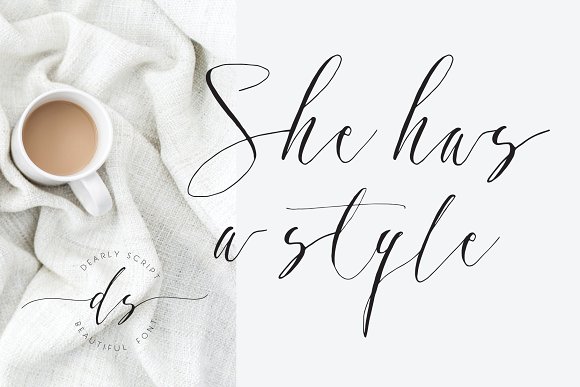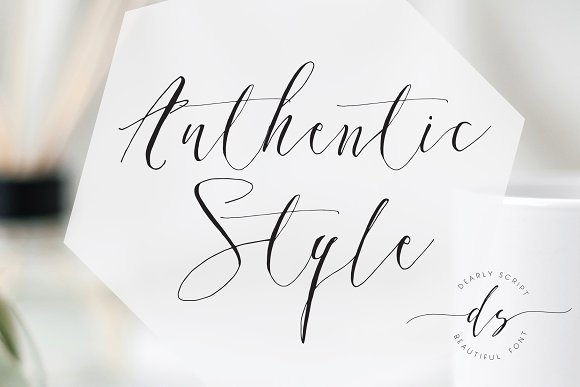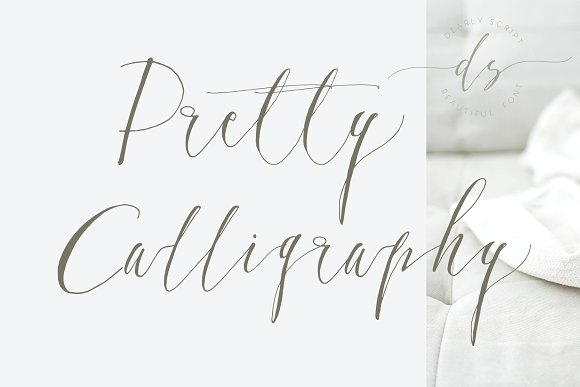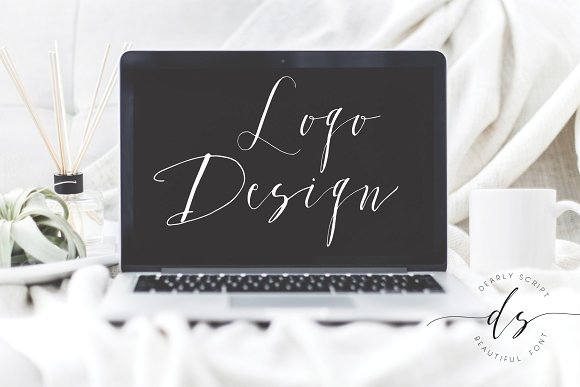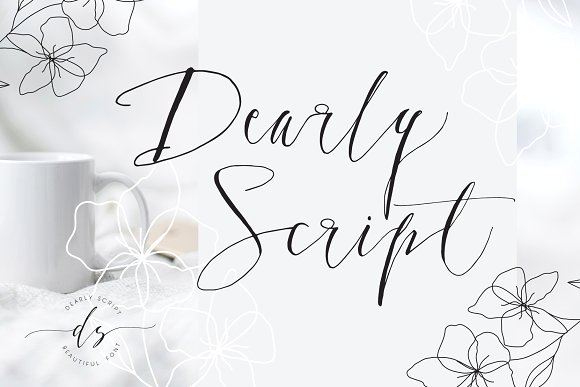
Dearly Script, New Calligraphy Font
Introducing Dearly Script, new calligraphy font with swashes. Dearly Script has a style and authentic look. This lovely font will beautiful you special day, branding and logo design, invitation design, very beautiful for your wedding day!